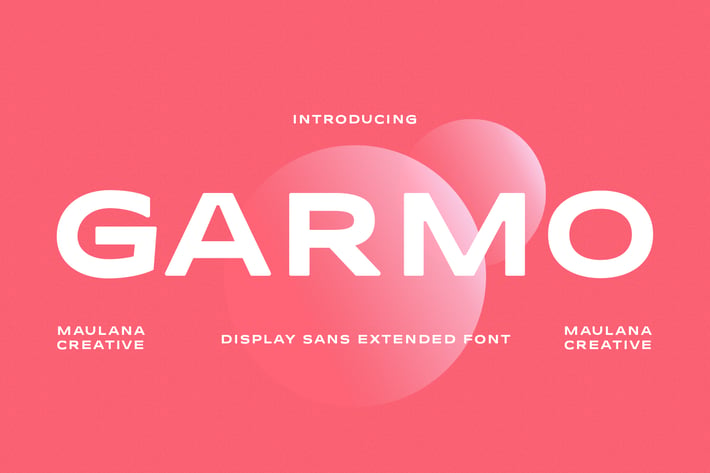
Garmo Sans Serif Display Font
Garmo is a wide strong display sans serif font. Regular stroke, fun character with a bit of ligatures and alternates. To give you an extra creative work. Garmo font support multilingual more than 100+ language. This font is good for logo design, Social media, Movie Titles, Books Titles, a short text even a long text letter and good for your secondary text font with script or serif. Make a stunning work with Garmo font.